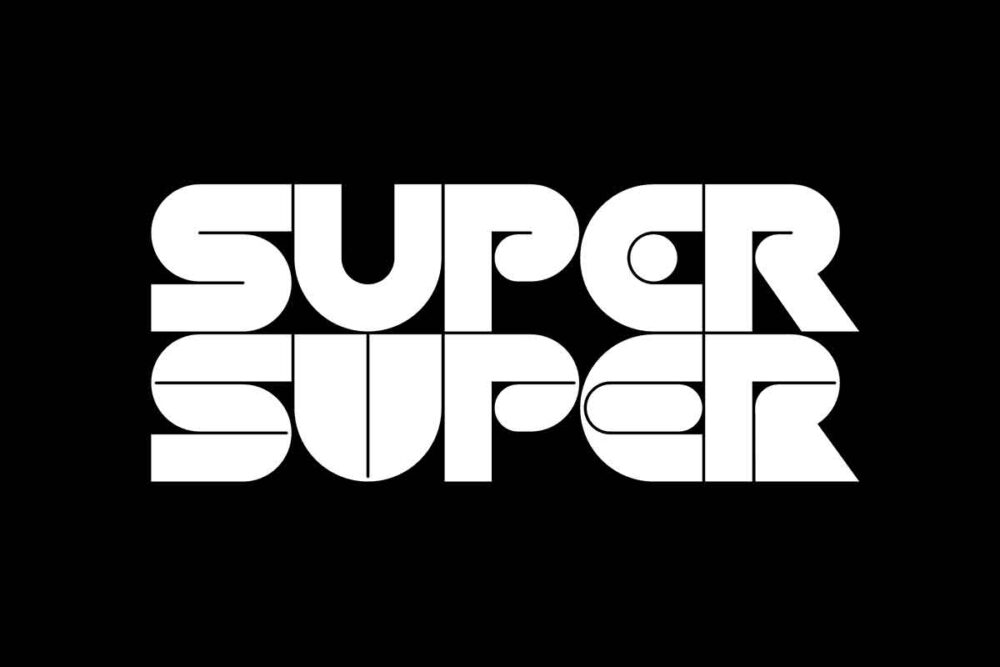
The Super Twins are crafted as a futuristic love letter to sex and science fiction in the 1970’s and 80’s. This unique revival of design nostalgia hits hard. Think Sorayama and Frazetta. Barbarella and Blade Runner. The NASA “worm” meets Space-X. It’s the past reimagined for the future.
Sporting ultra-sleek construction and razor sharp details, these two high performance display typefaces are fine tuned to get your motors running and rockets thrusting. Built on a single frame in all capitals, the pair look to evoke the two decades of inspirational design. In true BurnType fashion: they’re big, loud, and unapologetically zipper-melting. So strap in and hang on tight! The Super Twins are here to rock you into outer space!